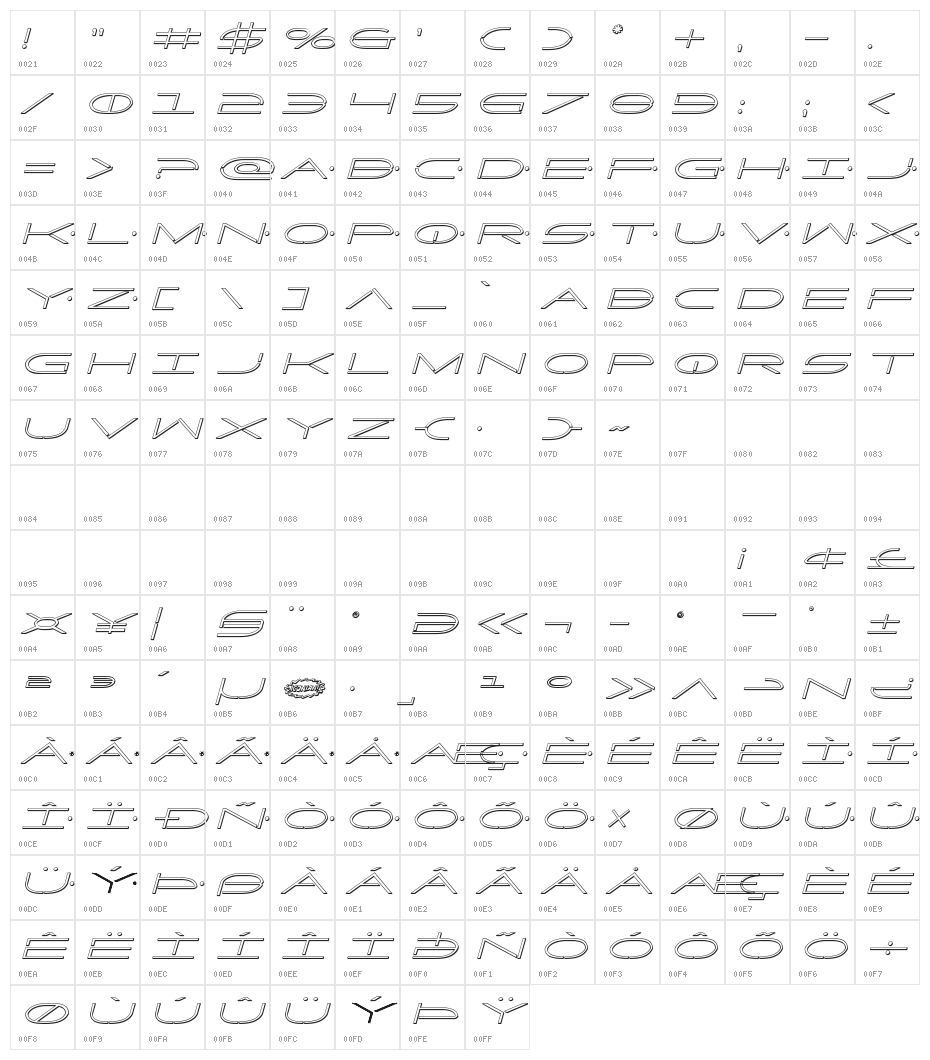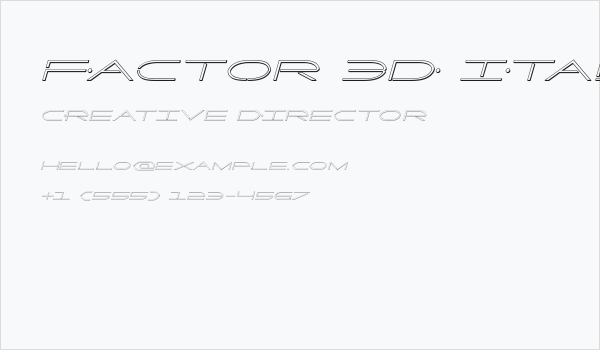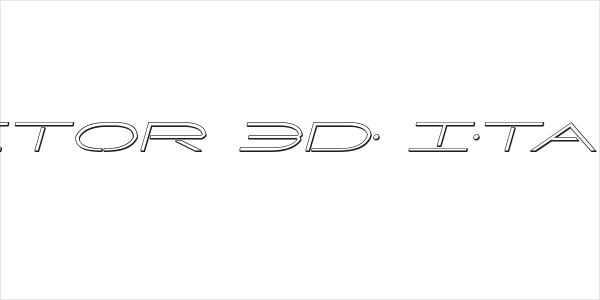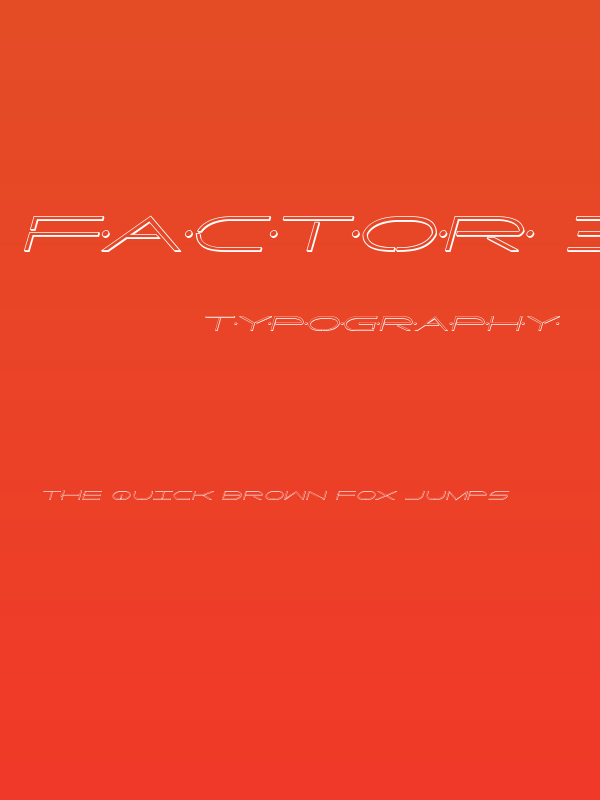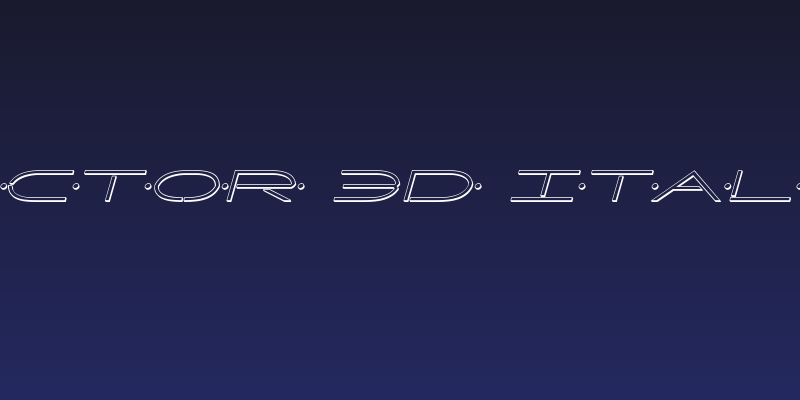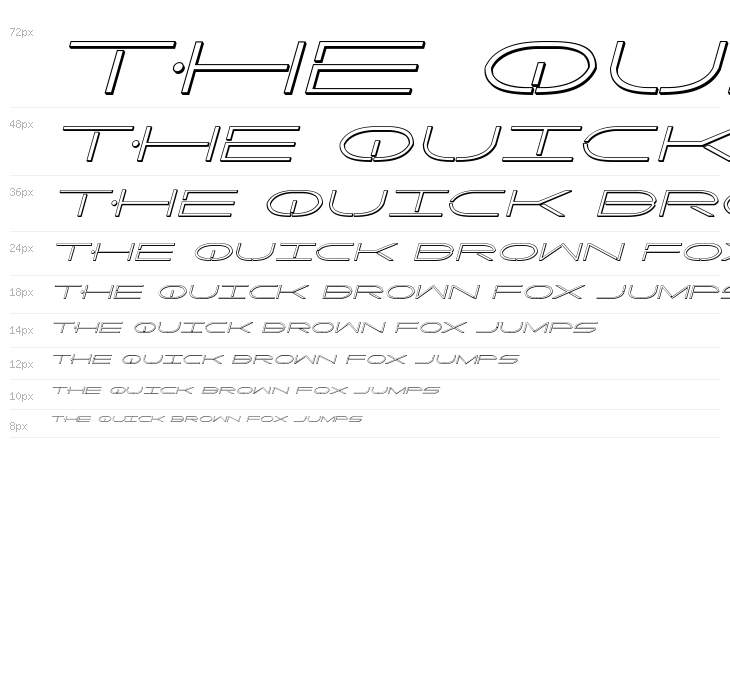
Factor 3D Italic Font
Factor 3D Italic Description
This font features a futuristic and geometric design with a 3D effect, characterized by its sharp angles and clean lines. The letters are italicized, giving them a dynamic and forward-leaning appearance. The uppercase and lowercase letters maintain a consistent style, with a unique blend of curves and straight edges. The numerals and special characters follow the same design principles, ensuring uniformity across all glyphs. The font's distinct style makes it suitable for modern and tech-oriented projects, where a sleek and innovative look is desired.